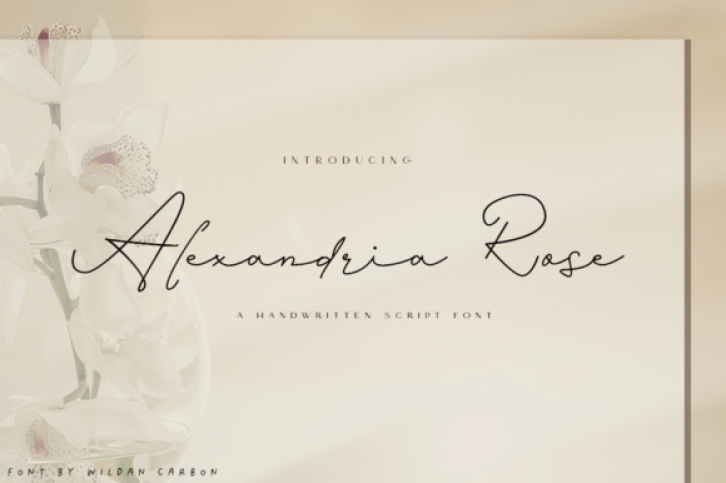
Alexandria Rose is a thin and elegant script font. It’s perfect for greeting cards, branding materials, wedding invitations, business cards, quotes, posters, and every other design which needs to look upscale and chic!